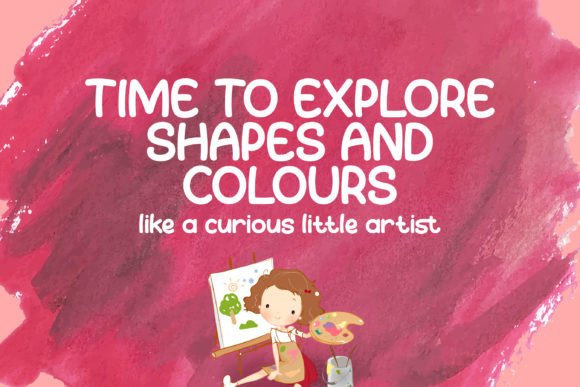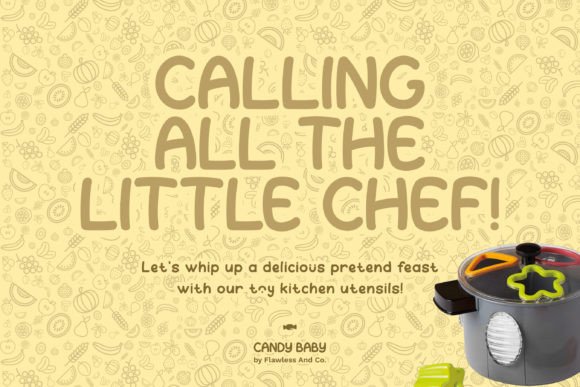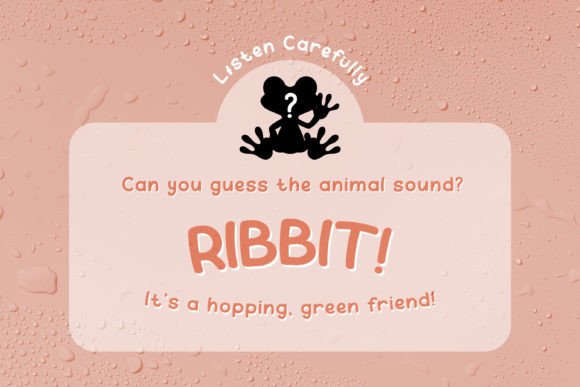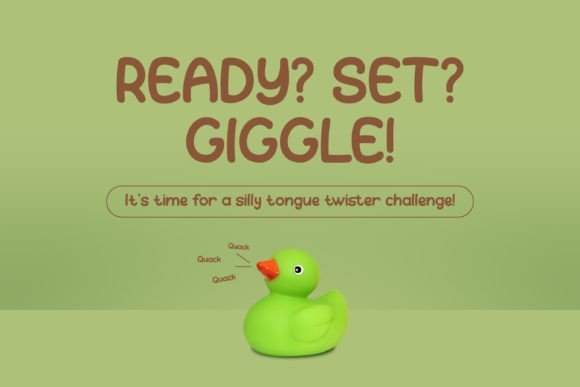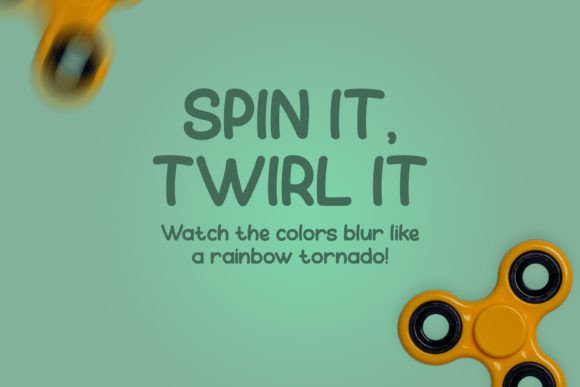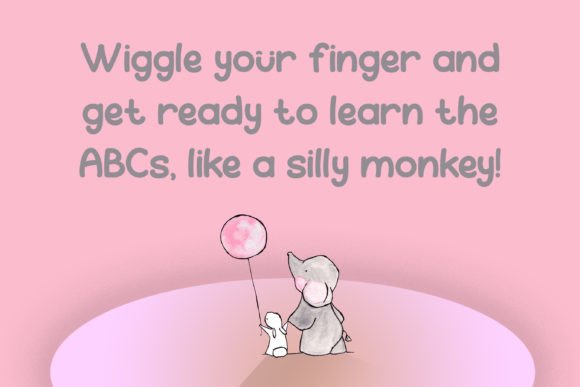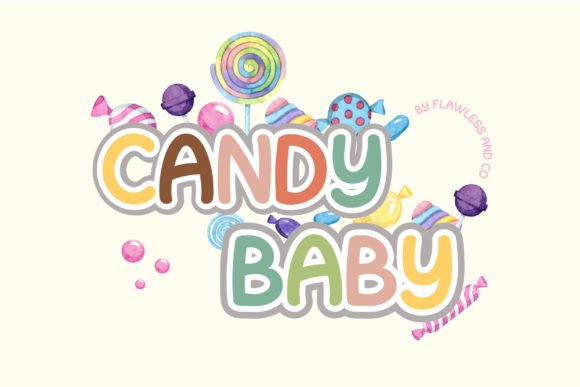
Introducing Candy Baby Font: The Sweetest Addition to Your Design Collection
Are you tired of using the same old fonts in your designs? Look no further! We’re thrilled to introduce “Candy Baby” – a delightful and whimsical font that’s sure to add a touch of playfulness to your projects. With its unique and charismatic letterforms, Candy Baby brings a sense of joy and lightheartedness to any design, making it perfect for creatives who want to evoke a smile.
The Playful Spirit of Candy Baby
Candy Baby’s letterforms are infused with a playful spirit, featuring quirky details and expressive curves that are sure to capture the attention of your audience. The font’s charming and energetic style is perfect for projects that require a dose of fun, such as children’s books, party decorations, packaging, or any design that seeks to evoke a smile. Whether you’re a designer, crafty DIY enthusiast, or a business owner looking to add some personality to your brand, Candy Baby is the perfect choice.
What Makes Candy Baby So Special?
So, what sets Candy Baby apart from other fonts? Here are just a few features that make it a standout:
- Unique Letterforms: Each letter in the Candy Baby font has been carefully crafted to be distinct and recognizable, making it perfect for titles, headings, and body text.
- Quirky Details: From the subtle imperfections to the playful swashes, Candy Baby is full of delightful details that add to its whimsical charm.
- Expressive Curves: The font’s curves are smooth and flowing, giving Candy Baby a friendly and approachable feel.
- Versatile: Candy Baby is suitable for a wide range of projects, from digital designs to print materials, and can be used for both personal and commercial purposes.
Candy Baby is a dream come true for designers and crafters who want to add a touch of whimsy to their work. Here are just a few ways you can use this delightful font:
- Children’s Books: Create engaging and interactive stories for kids with Candy Baby’s playful and energetic style.
- Party Decorations: Use Candy Baby to create eye-catching party invitations, banners, and decorations that are sure to delight kids and adults alike.
- Packaging: Add a touch of fun and personality to your product packaging with Candy Baby’s unique and charismatic letterforms.
- DIY Projects: Use Candy Baby to add a personal touch to your craft projects, such as handmade cards, gift tags, and scrapbooking pages.
Get Ready to Fall in Love with Candy Baby
If you’re looking for a font that will add a touch of playfulness and whimsy to your designs, look no further than Candy Baby. With its unique letterforms, quirky details, and expressive curves, this delightful font is sure to capture the hearts of designers, crafters, and audiences alike. So why wait? Download Candy Baby today and start creating sweet and charming designs that are sure to evoke a smile!